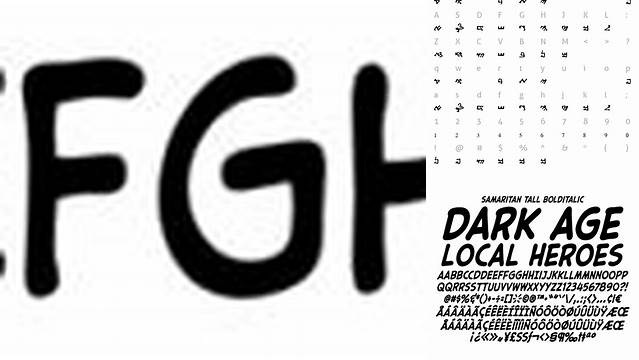
Samaritan Tall Regular Font: Free Download & Usage Guide
Hey guys! Are you on the hunt for a font that's both elegant and readable? Look no further! Today, we're diving deep into the world of Samaritan Tall Regular, a font that's been making waves in the design community. This font isn't just another typeface; it’s a blend of sophistication and clarity, perfect for a wide range of projects. Whether you're a seasoned designer or just starting, understanding the nuances of a font like Samaritan Tall Regular can significantly elevate your work. So, let's explore what makes this font so special, where you can snag it for free, and how to use it effectively in your designs. We will explore all the nitty-gritty details about this fantastic font. From its unique characteristics to its ideal use cases, you’ll get a comprehensive overview. Plus, we’ll walk you through the steps to download and install it, ensuring you can start using it right away. So, grab your favorite beverage, settle in, and let’s unravel the magic of Samaritan Tall Regular!
What Makes Samaritan Tall Regular So Special?
When it comes to fonts, Samaritan Tall Regular stands out for its unique blend of modern aesthetics and classic readability. The font is characterized by its tall, slender characters, which lend a touch of elegance and sophistication to any design. Unlike some fonts that sacrifice clarity for style, Samaritan Tall Regular maintains excellent legibility, making it a versatile choice for both headings and body text. This font's clean lines and balanced proportions make it visually appealing without being overly distracting. The subtle curves and sharp angles create a harmonious balance, giving it a polished and professional look. One of the key strengths of Samaritan Tall Regular is its adaptability. It works exceptionally well in various design contexts, from digital interfaces to print materials. Imagine using it for your website's headers, where its tall stature can grab attention without overwhelming the reader. Or picture it in a printed brochure, where its clarity ensures that your message is conveyed effectively. The font's neutral yet refined appearance also makes it a great choice for branding materials. Whether you're designing a logo, business cards, or marketing collateral, Samaritan Tall Regular can help you create a cohesive and professional brand identity. Its versatility extends to editorial design as well. The font's readability makes it suitable for long-form content, such as articles and reports, while its elegant style adds a touch of sophistication. Moreover, Samaritan Tall Regular supports a wide range of characters and languages, making it a global-friendly option. This is particularly important if you're working on projects that require multilingual support. You can rest assured that this font will maintain its consistency and clarity across different languages and scripts. Its open and airy design promotes effortless reading, reducing eye strain and enhancing the overall user experience. So, whether you're crafting a captivating headline or composing an engaging paragraph, Samaritan Tall Regular ensures that your words are presented with style and precision. Its unique attributes make it a valuable addition to any designer's toolkit, offering a perfect balance of aesthetics and functionality.
Best Uses for Samaritan Tall Regular in Design
Alright, now that you've got Samaritan Tall Regular installed, let's explore the best ways to use this fantastic font in your designs. This font's versatility makes it a valuable asset for various projects, but understanding its strengths can help you maximize its impact. One of the most effective uses for Samaritan Tall Regular is in headings and titles. Its tall, slender characters command attention without being overly bold or aggressive. This makes it perfect for creating eye-catching headlines that draw the reader in. Whether you're designing a website, a brochure, or a poster, using Samaritan Tall Regular for your headings can add a touch of elegance and sophistication. In web design, Samaritan Tall Regular shines as a header font. Its clean lines and readability make it easy to read on screens of all sizes. You can pair it with a simpler sans-serif font for body text to create a balanced and visually appealing layout. Its tall stature can also be used to create a sense of hierarchy, guiding the reader's eye through the content. For print materials, such as brochures and flyers, Samaritan Tall Regular is an excellent choice for headlines and subheadings. Its clarity ensures that your message is conveyed effectively, while its elegant style adds a professional touch. You can also use it for pull quotes or captions to highlight key information. In branding, Samaritan Tall Regular can help you create a cohesive and sophisticated brand identity. Its neutral yet refined appearance makes it suitable for logos, business cards, and marketing collateral. You can use it to convey a sense of professionalism and trustworthiness, making it a great choice for businesses in various industries. Editorial design is another area where Samaritan Tall Regular excels. Its readability makes it ideal for long-form content, such as articles and reports. You can use it for both headings and body text, although it's often best to pair it with a more traditional serif font for body text to enhance readability. When using Samaritan Tall Regular, it's essential to consider the overall tone and style of your design. While it's a versatile font, it's not the best choice for every project. For example, it might not be suitable for designs that require a very playful or informal look. In such cases, you might want to opt for a more whimsical or casual font. However, for projects that call for elegance, clarity, and sophistication, Samaritan Tall Regular is a top-notch choice. Its unique blend of style and readability makes it a valuable addition to any designer's toolkit, allowing you to create designs that are both visually appealing and highly effective. So, go ahead and experiment with it in your next project, and see how it can elevate your work!
Tips and Tricks for Using Samaritan Tall Regular Effectively
Okay, guys, let's dive into some tips and tricks to help you use Samaritan Tall Regular most effectively. While this font is incredibly versatile, a few smart strategies can help you make the most of its unique characteristics and ensure your designs look polished and professional. First and foremost, consider contrast. When pairing Samaritan Tall Regular with other fonts, aim for a strong contrast to create visual interest and hierarchy. Since Samaritan Tall Regular is a sans-serif font, pairing it with a serif font for body text is often a winning combination. This contrast in styles can enhance readability and make your design more engaging. For example, you could pair Samaritan Tall Regular headlines with a classic serif font like Times New Roman or Georgia for body text. This creates a traditional yet modern feel that works well for various projects. Another approach is to pair Samaritan Tall Regular with a different sans-serif font that has a more distinct personality. For instance, you could use a bolder or more geometric sans-serif for subheadings or callouts, creating a visual hierarchy within your design. When it comes to font sizes, think carefully about legibility and visual impact. Samaritan Tall Regular's slender characters can appear smaller than other fonts of the same point size, so you might need to increase the font size slightly to ensure readability, especially in body text. For headings, experiment with different sizes to find the sweet spot where the font commands attention without overwhelming the design. Leading and kerning are also crucial factors in font legibility. Leading refers to the vertical space between lines of text, while kerning is the spacing between individual letters. Adjusting these settings can significantly impact the readability of Samaritan Tall Regular, particularly in longer blocks of text. Increase the leading slightly to give the lines of text more breathing room, and fine-tune the kerning to ensure that the letters are evenly spaced and visually appealing. Color is another powerful tool for enhancing the impact of Samaritan Tall Regular. Using contrasting colors for headings and body text can create visual interest and make your design more dynamic. However, be mindful of color combinations and ensure that they provide sufficient contrast for readability. Dark text on a light background is generally the most legible option, but you can also experiment with light text on a dark background for a more dramatic effect. In addition to these technical tips, consider the overall tone and style of your design when using Samaritan Tall Regular. This font exudes elegance and sophistication, so it's best suited for projects that require a professional or refined look. Avoid using it in designs that are intended to be playful or informal, as it might not be the best fit. By keeping these tips and tricks in mind, you can harness the full potential of Samaritan Tall Regular and create designs that are both visually stunning and highly effective. Experiment with different combinations and settings to find what works best for your specific project, and don't be afraid to push the boundaries and try new things!
Conclusion: Elevate Your Designs with Samaritan Tall Regular
So, guys, there you have it! A comprehensive guide to Samaritan Tall Regular, a font that’s sure to become a staple in your design toolkit. We've explored its unique characteristics, where to download it for free, how to install it, and the best ways to use it in your projects. From its elegant and readable design to its versatility across various applications, Samaritan Tall Regular truly stands out as a top-tier font. Whether you're crafting eye-catching headlines, designing professional branding materials, or laying out long-form content, this font has the potential to elevate your work to the next level. Remember, the key to effective design is understanding your tools and using them strategically. By mastering the nuances of fonts like Samaritan Tall Regular, you can create designs that are not only visually appealing but also highly effective in conveying your message. Experiment with different combinations, settings, and styles to discover the full potential of this font, and don't be afraid to push the boundaries and try new things. The world of design is constantly evolving, so it's essential to stay curious and keep learning. By adding Samaritan Tall Regular to your font arsenal and applying the tips and tricks we've discussed, you'll be well-equipped to tackle a wide range of design challenges. So, go ahead, download Samaritan Tall Regular, and start experimenting! Let your creativity flow, and watch as your designs transform with this elegant and versatile font. Whether you're a seasoned designer or just starting, Samaritan Tall Regular is a valuable asset that can help you create designs that are both beautiful and effective. Embrace its elegance, leverage its readability, and let your imagination run wild. The possibilities are endless when you have the right tools at your fingertips. So, here's to your design success with Samaritan Tall Regular! Happy designing, guys!